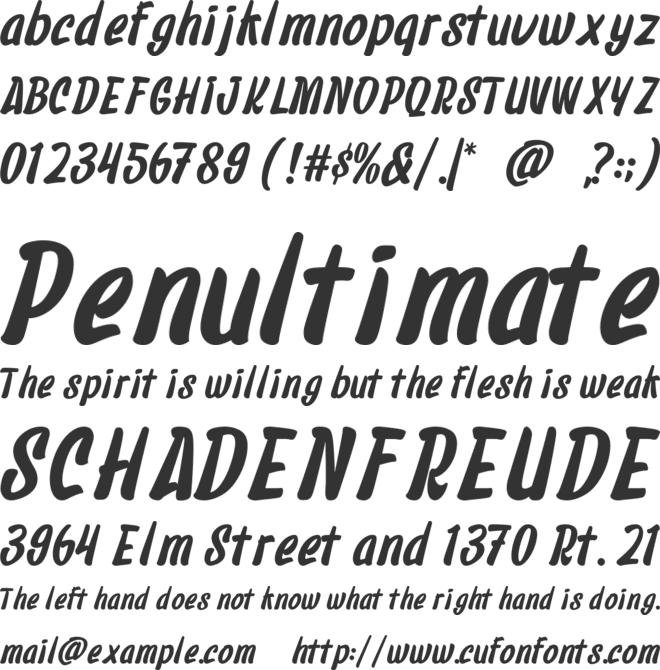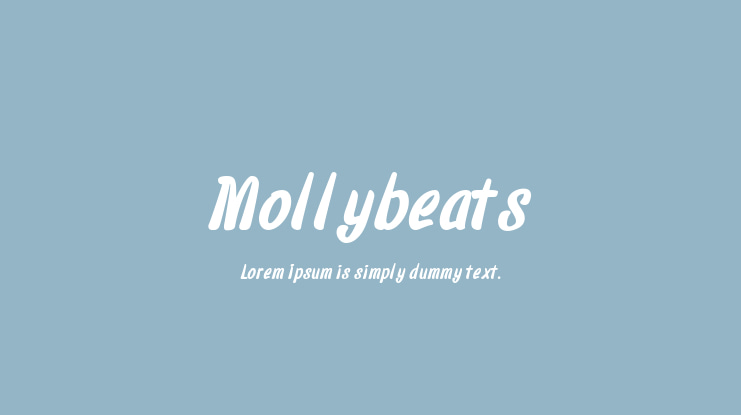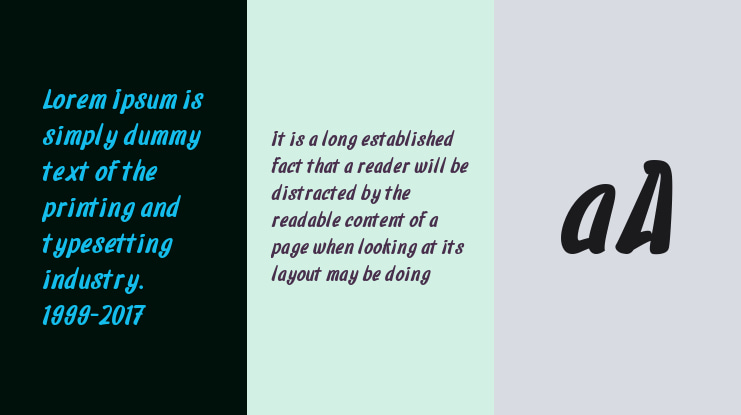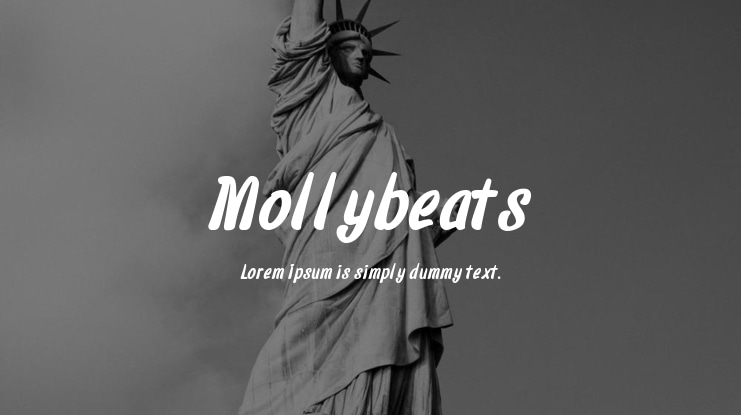
Mollybeats Font
Ny Indrayana
Molly Beats Handwritten Font is a stylish, retro-inspired script font that brings vintage charm with a modern twist. Its smooth, flowing brush strokes and hand-drawn aesthetic echo the nostalgic feel of mid-century signage, but with a fresh, contemporary flair. Perfect for adding personality and flair to retro posters, logos, packaging, or any creative project, Molly Beats melds the boldness of classic sign-painting with the dynamic energy of modern design trends.